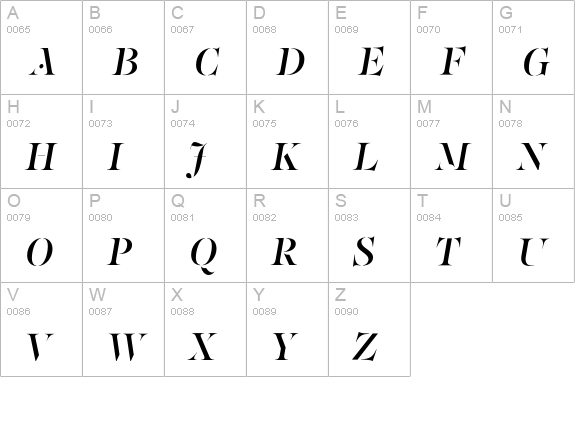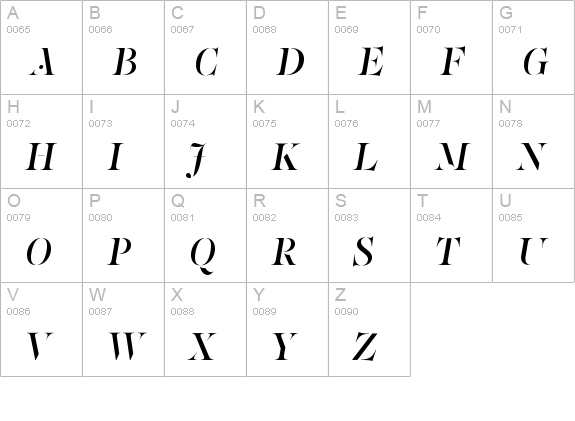
PFRegalStencilPro-MediumItalic is a stylish and elegant stencil font that exudes sophistication and modernity. Its medium weight combined with italic styling creates a unique and eye-catching look that is perfect for a wide range of design projects. The precise and sharp stencil cuts give this font a clean and professional appearance, making it ideal for both print and digital applications. This font is freely available for download at FontsMarket.com, allowing you to easily incorporate it into your projects without any cost. Whether you are designing a logo, creating promotional materials, or working on a branding project, PFRegalStencilPro-MediumItalic will add a touch of class and elegance to your designs. Elevate your work with this versatile and visually striking font today.